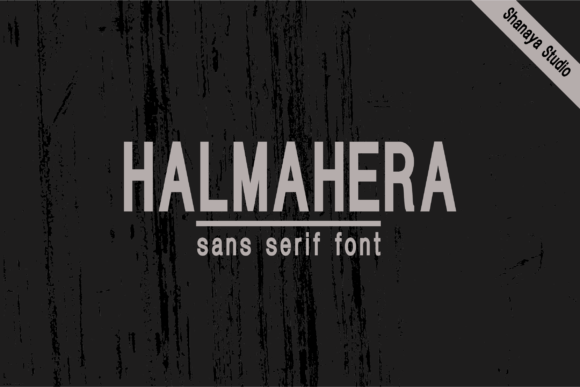
Halmahera Sans Serif Font Demo
This is a modern sans serif font by Shanaya Creative. This is a strong sans serif font designed with high letters. Simple and stylish, it works great to make logos and short titles. Introducing Halmahera Font. It’s a sweet and cool sans serif font with a unique vibe. Get inspired by its sleek feel, and turn any design idea into a true standout! Perfect for large headings, body text, and advertisements. An essential font and a great asset to own, this typeface will give your project a clean and modern look.